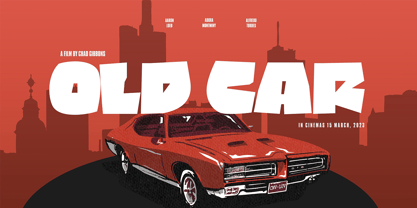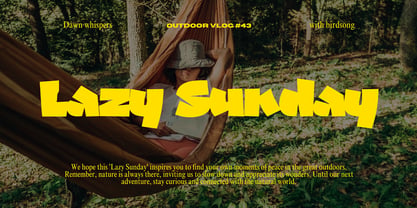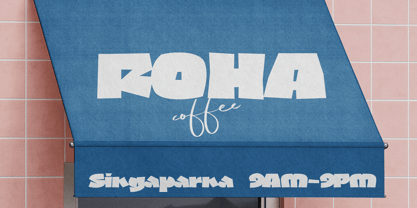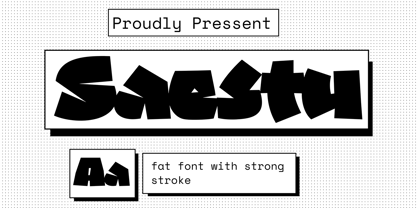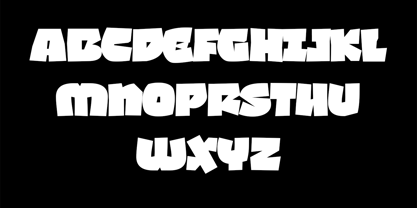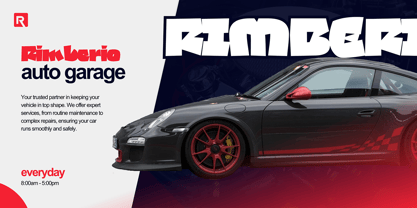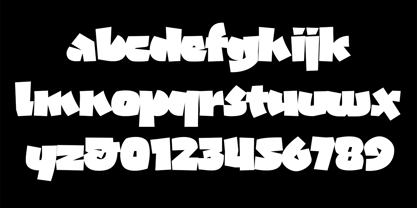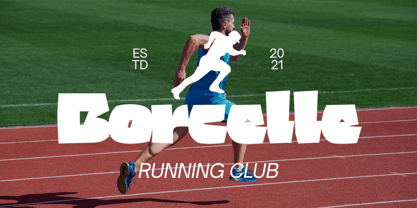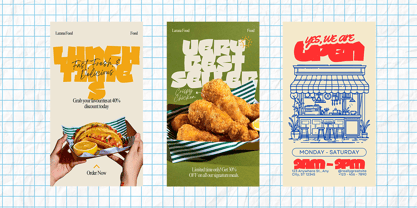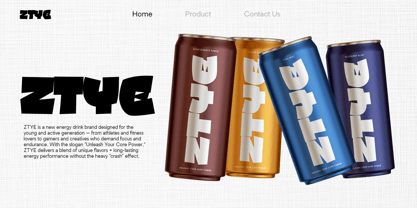
Saestu
by RNDI Type Foundry
The Saestu Font Family was designed by Randi Ilhamsyah and published by RNDI Type Foundry. Saestu contains 1 styles. More about this family
Saestu is a bold display font with chunky and asymmetrical letterforms that instantly grab attention. Its strong strokes and playful shapes make it perfect for creating energetic and eye-catching designs. Saestu works great for logos, posters, packaging, apparel, and social media graphics, bringing a retro-modern and youthful vibe. Whether you’re building a brand or designing promotional materials, this font delivers a fun yet powerful statement.
Designers: Randi Ilhamsyah
Foundry: RNDI Type Foundry